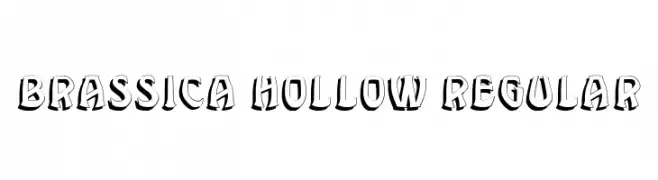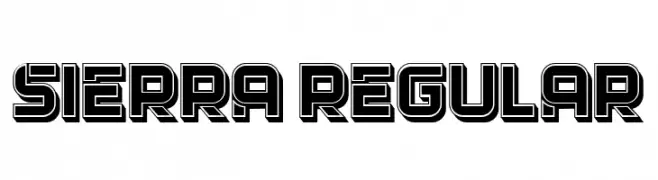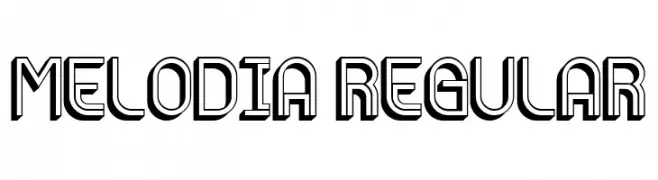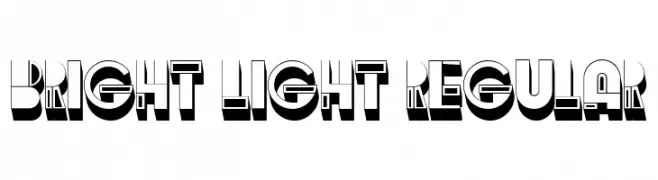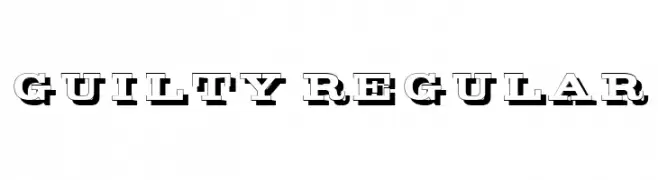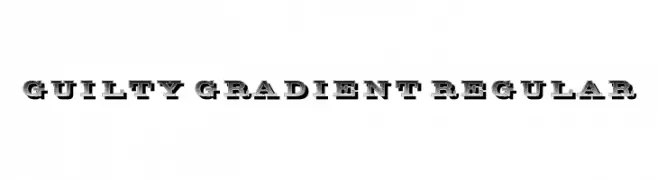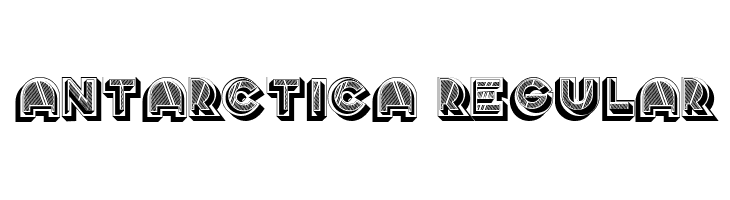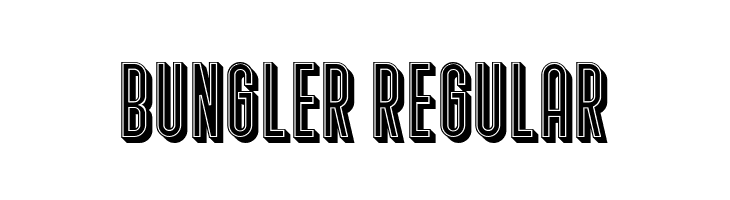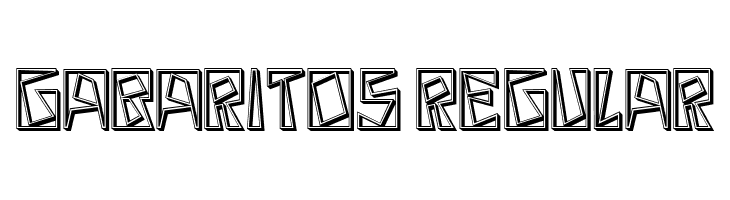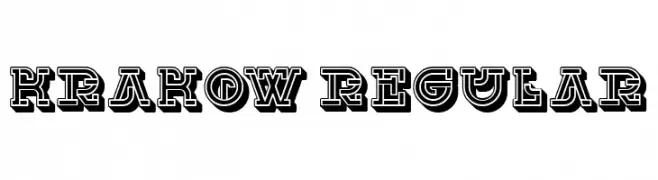
A bold, hollow, decorative font with a playful, three-dimensional style.
A geometric, outlined font with a modern, futuristic style.
A bold, geometric font with a three-dimensional outline effect.
A bold, geometric font with a futuristic, three-dimensional look.
A bold, decorative font with a three-dimensional effect and geometric structure.
A bold, decorative font with a 3D effect and geometric shapes, ideal for impactful designs.
A bold, three-dimensional font with strong shadow effects and geometric structure.
A bold, collegiate-style font with double-line outlines and strong geometric shapes.
A bold, three-dimensional font with a vintage shadow effect.
A bold, decorative slab serif font with a gradient effect for a 3D look.